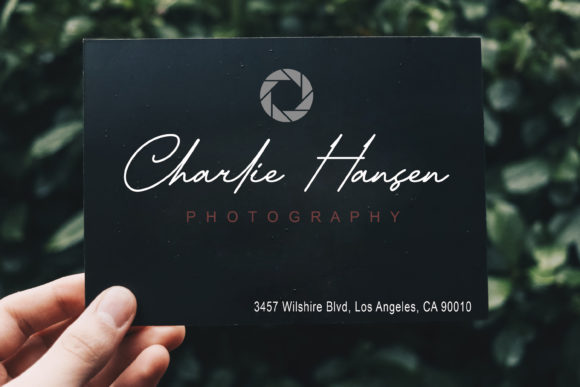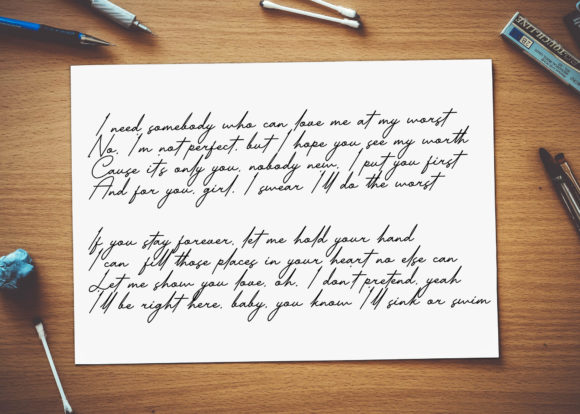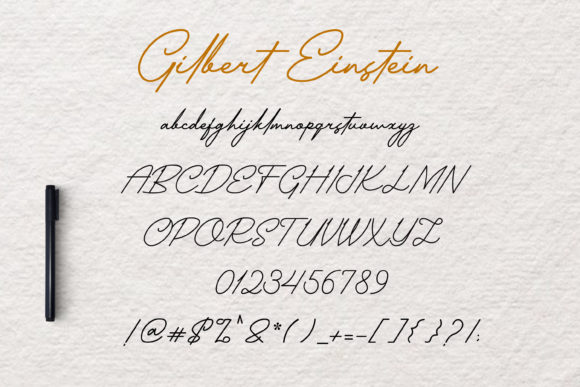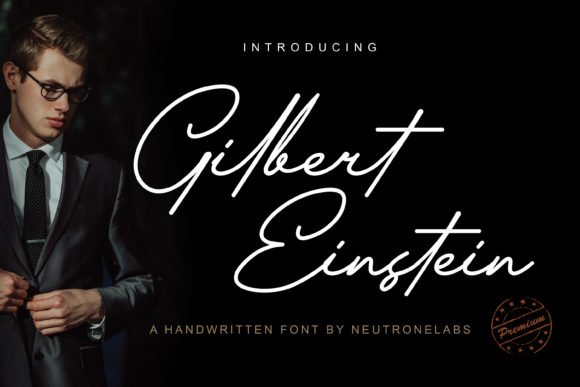
Introduction to Gilbert Einstein Font
Gilbert Einstein is a thin lettered and graceful script font.
Fall for its ravishing style and use it to create gorgeous wedding invitations, beautiful stationary art, eye-catching social media posts, and much more .
Gilbert Einstein Font offers exceptional quality and versatility, making it a valuable addition to your design toolkit. Whether you’re creating for personal projects or commercial use, Gilbert Einstein Font delivers professional results.